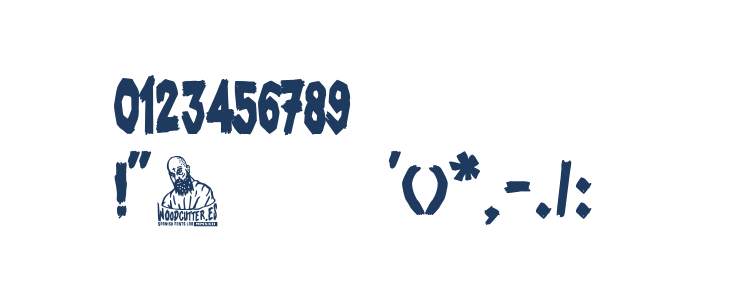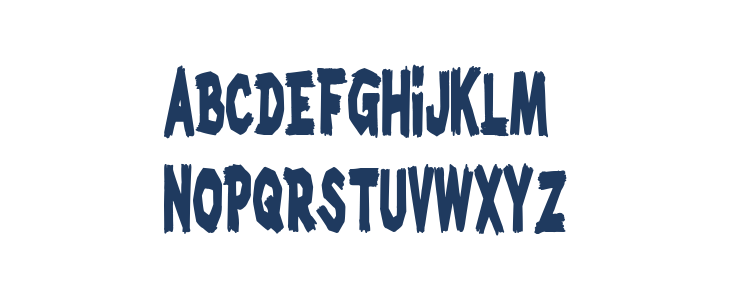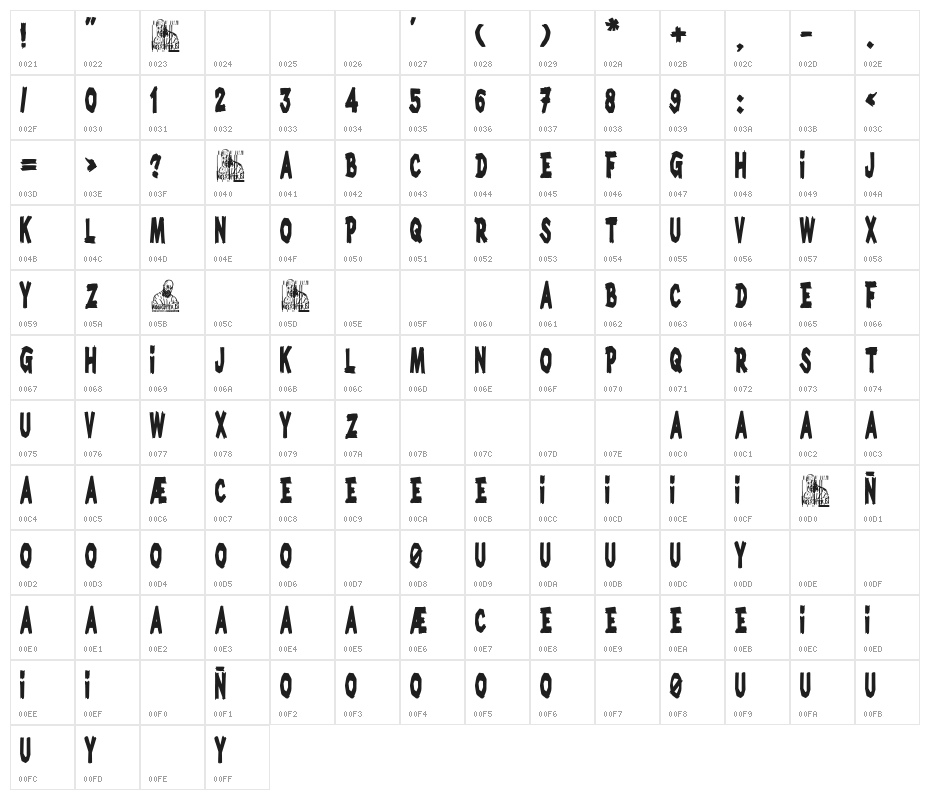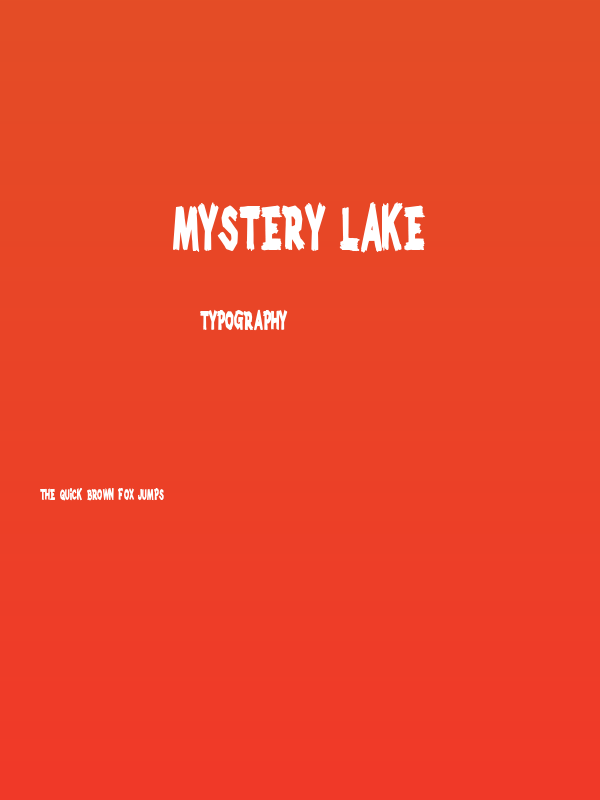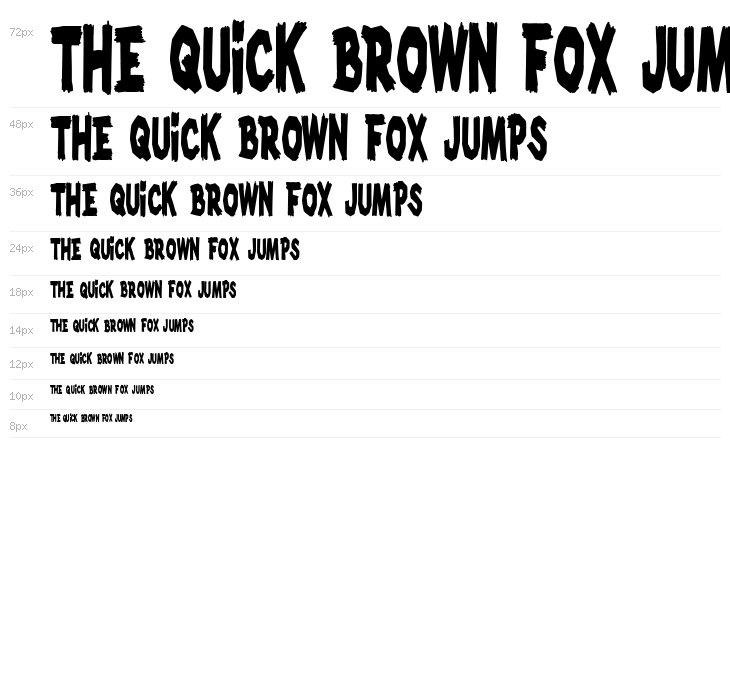
Mystery Lake Font
Mystery Lake Description
A bold, rough-edged, hand-drawn display font with irregular strokes and a distressed, brush-like texture. The characters are uppercase only, with exaggerated, uneven lines and a strong, expressive presence.
| Overall Style | Decorative, Rough, Hand-drawn |
| Use Case | Headlines, Posters, Logos, Themed graphics |
| Proposed Projects | Horror movie posters, comic book titles, Halloween event flyers, adventure game graphics, bold signage. |